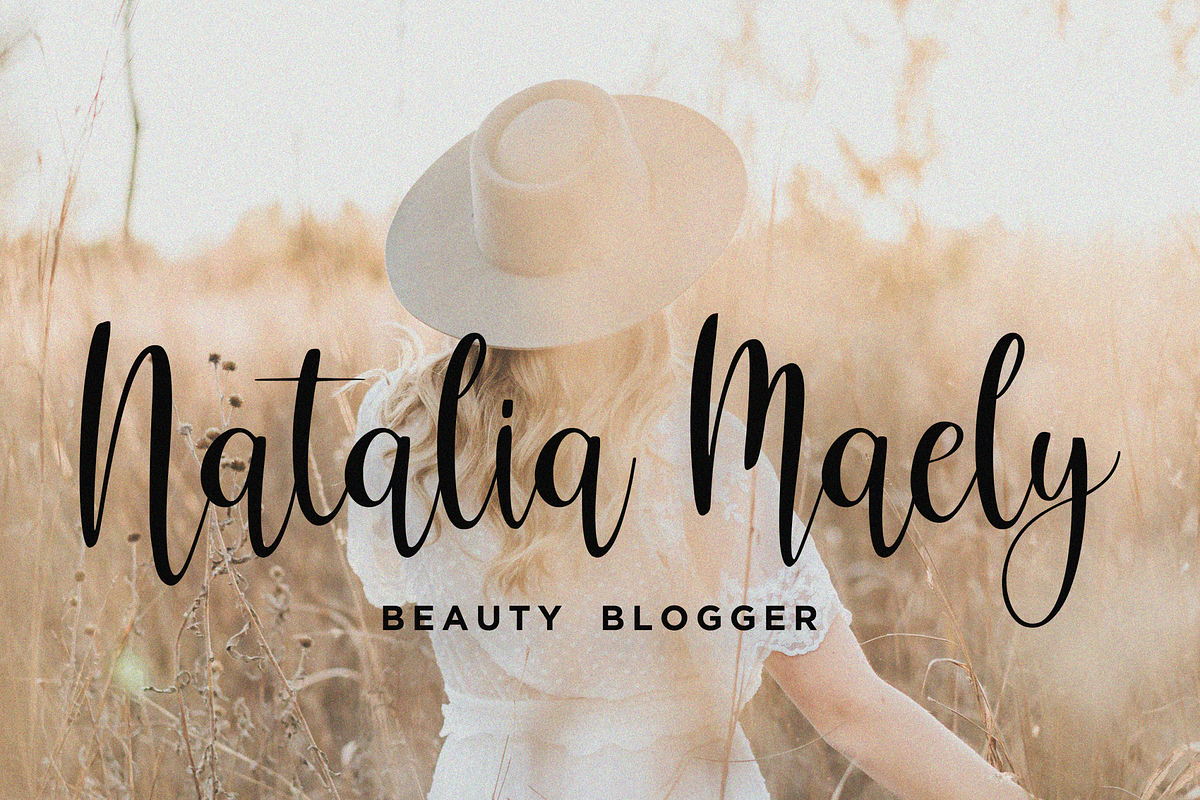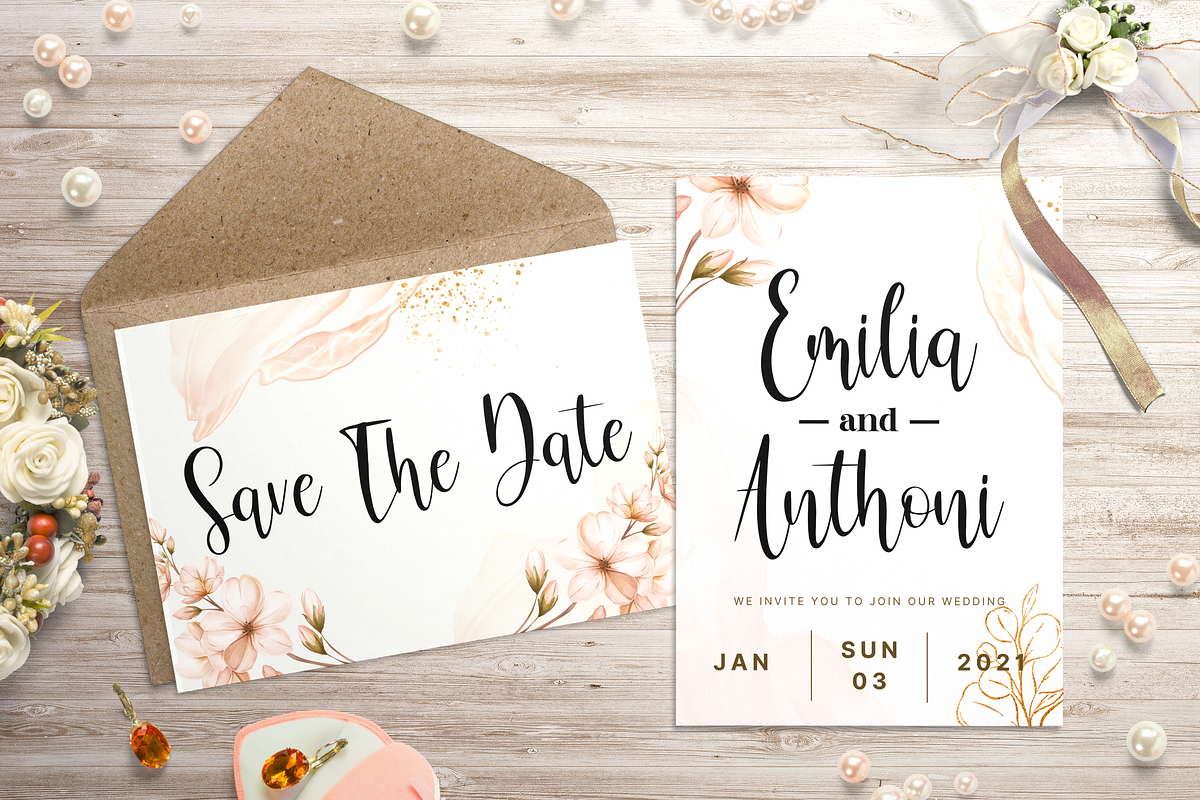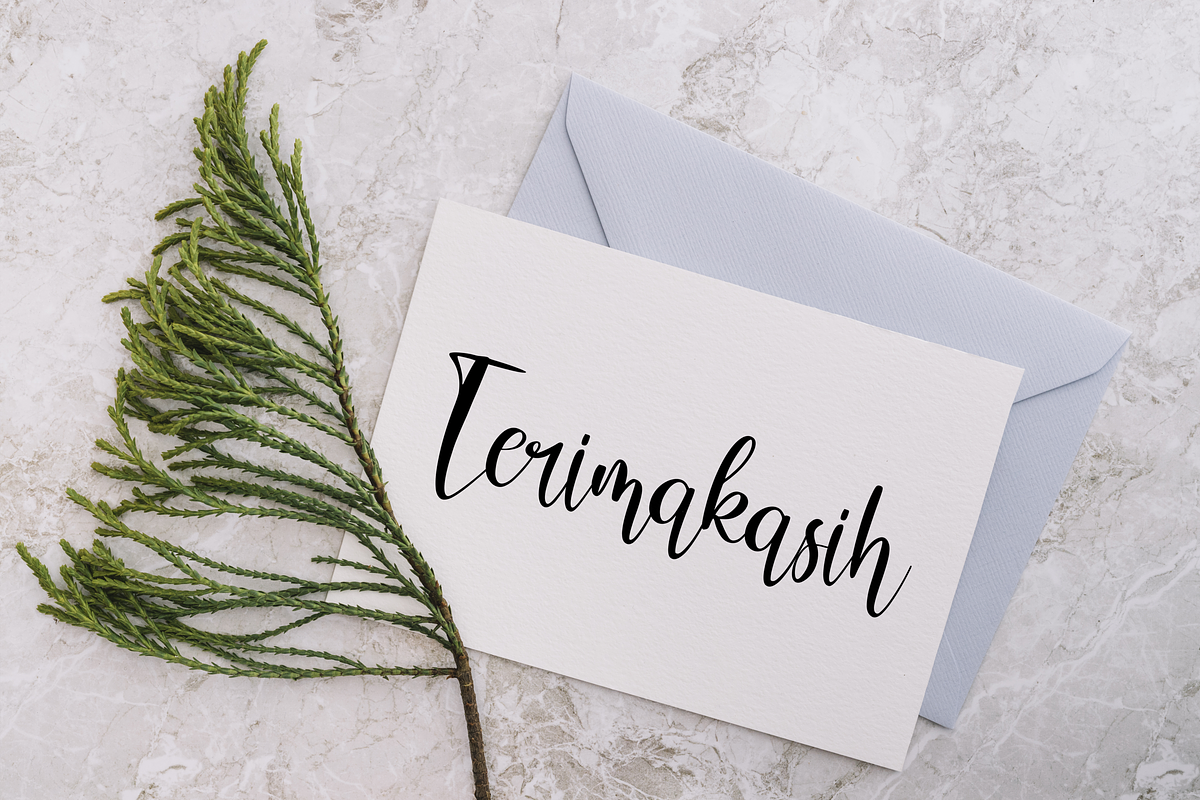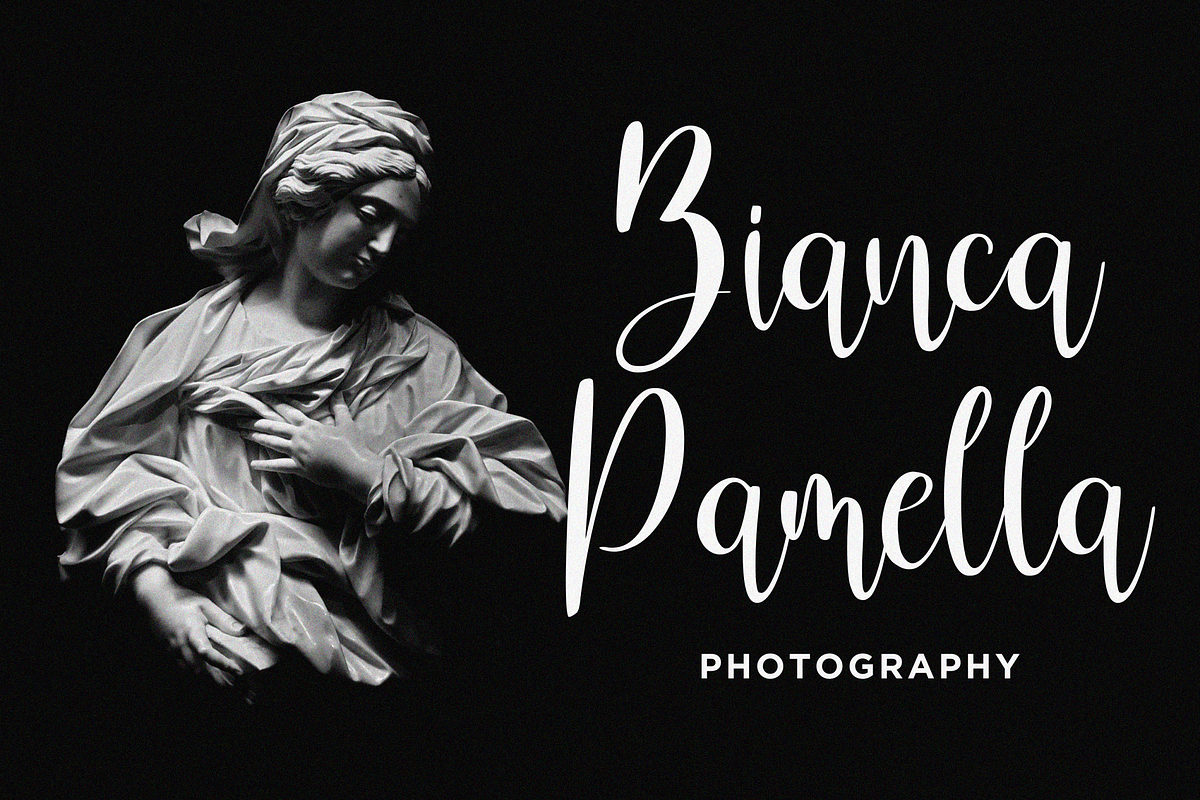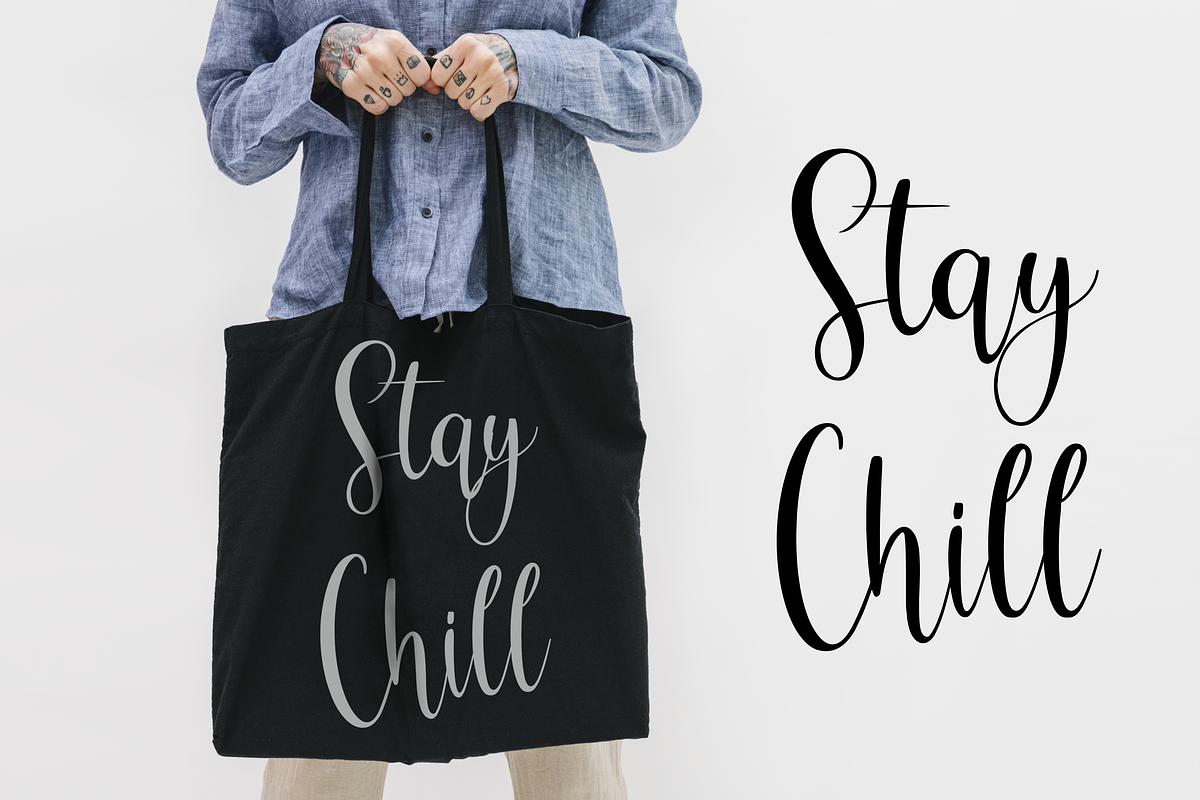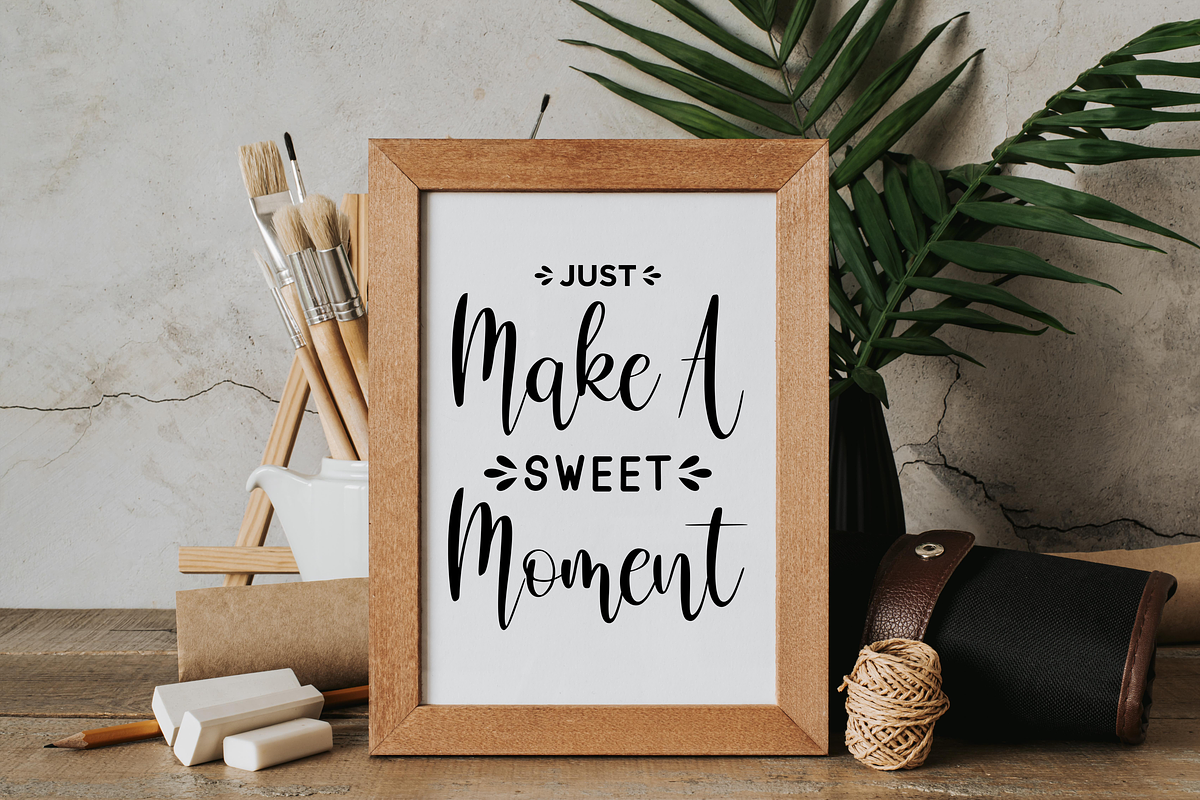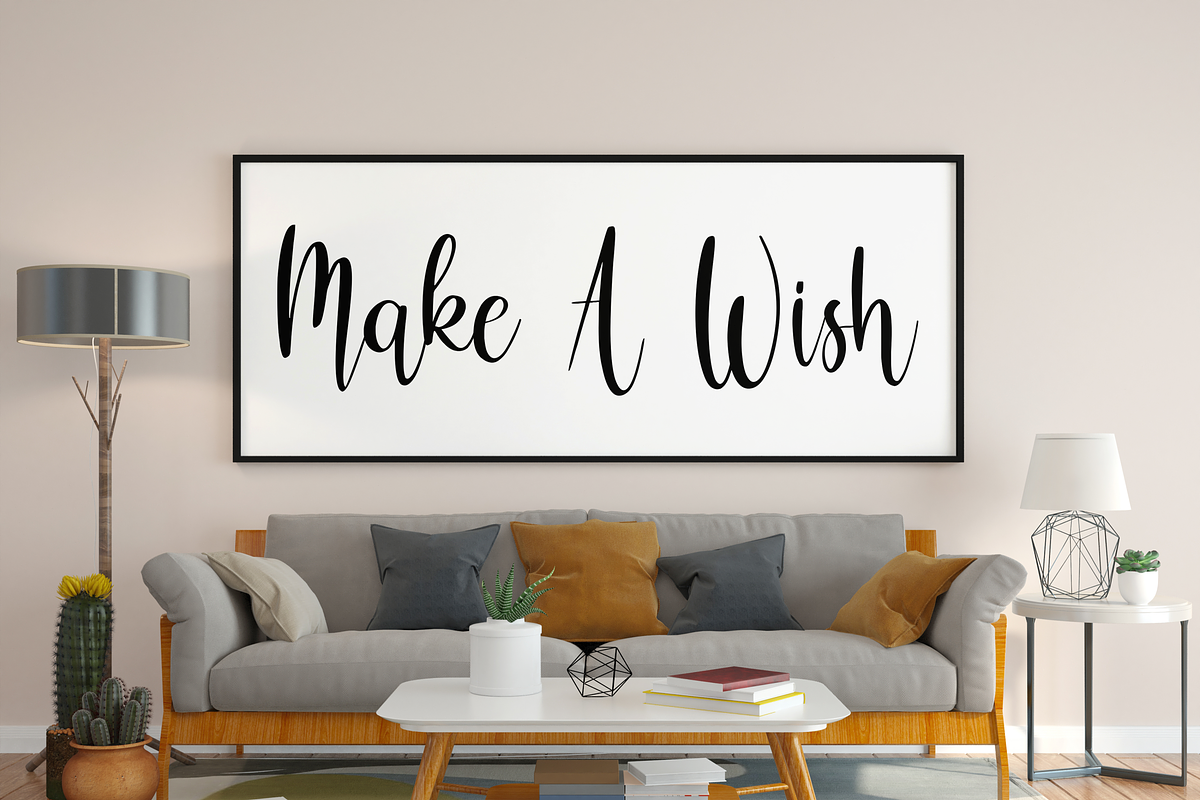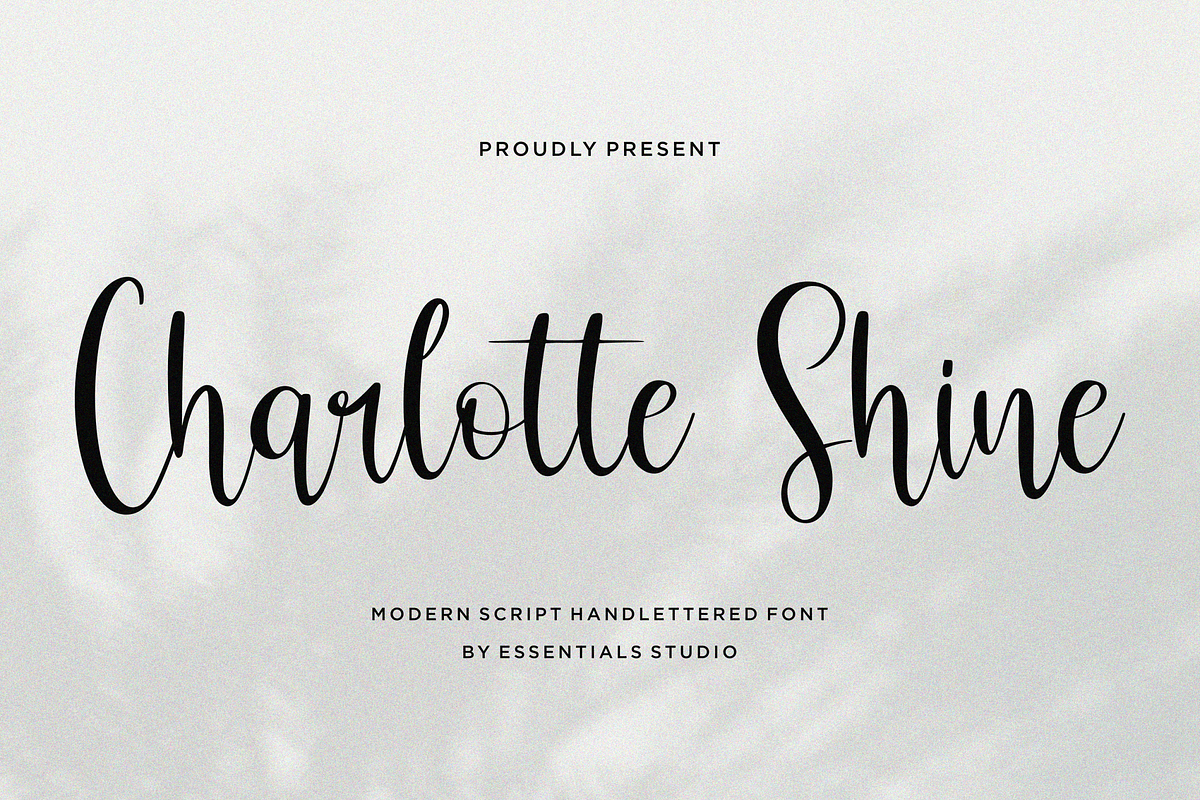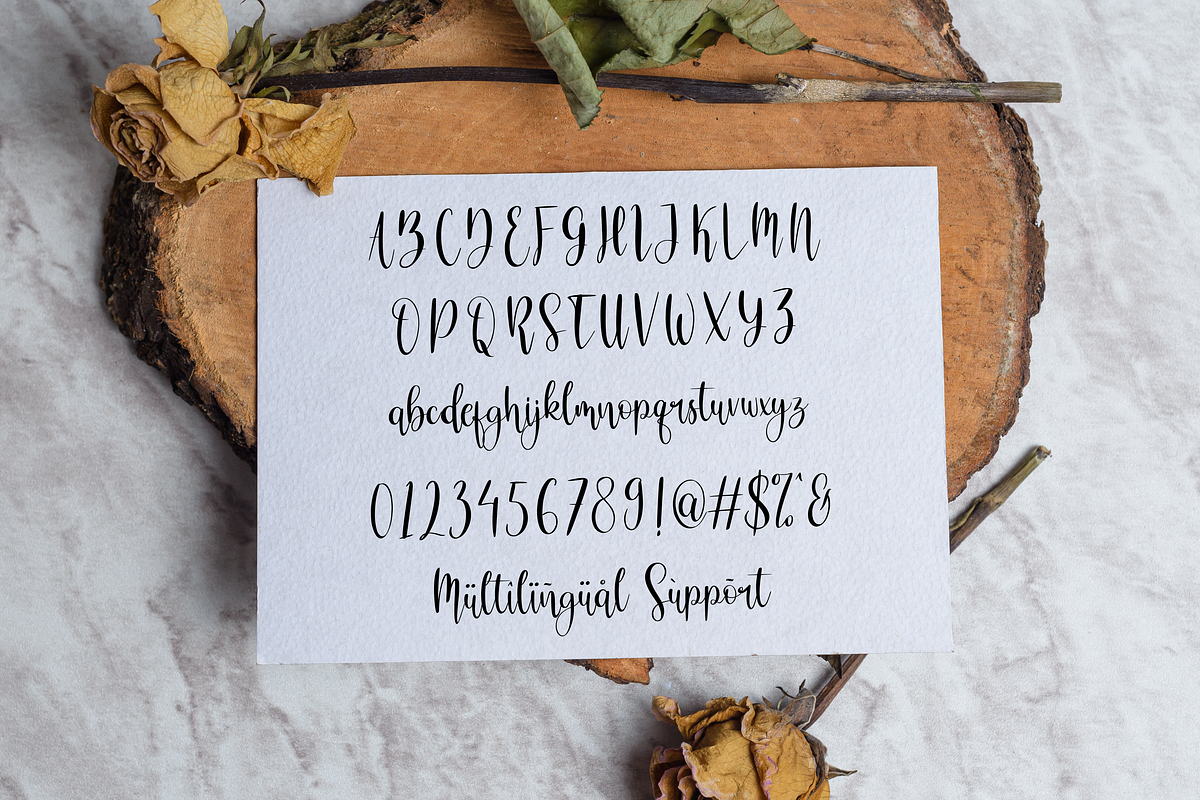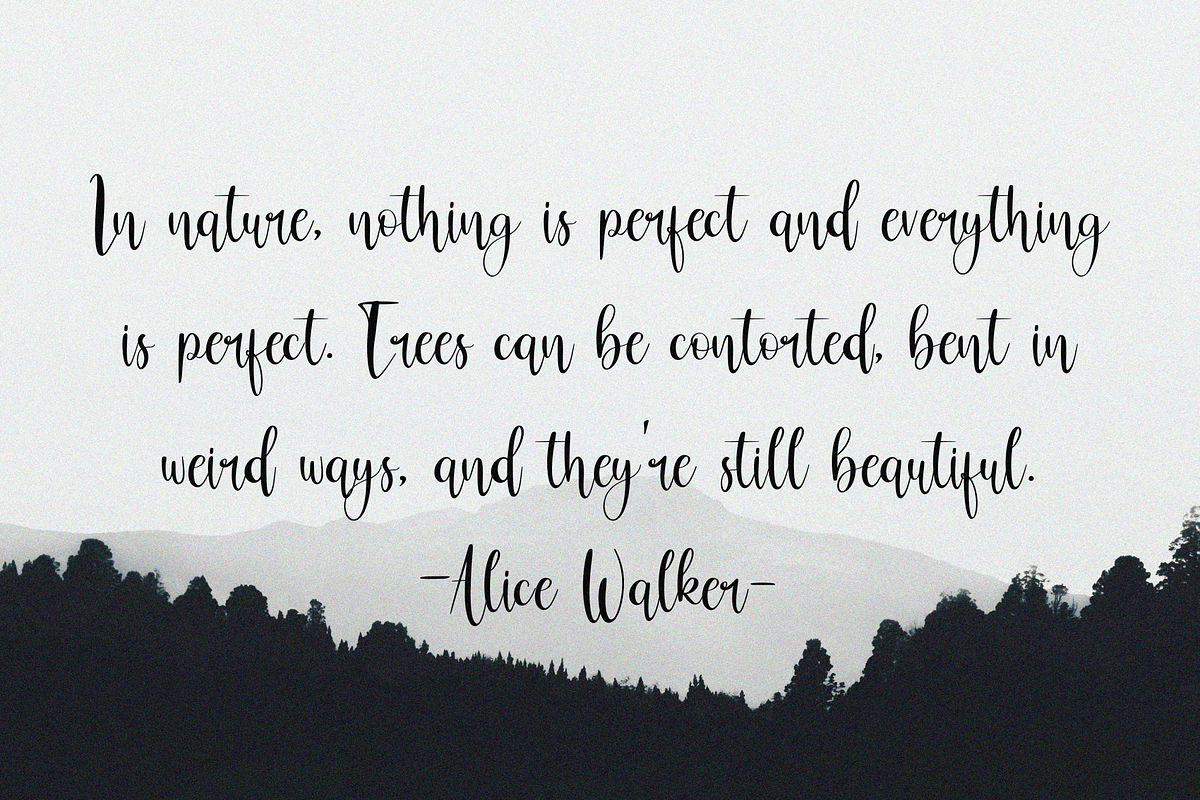
Charlote Shine
Proudly Present, Charlotte Shine Is a A Modern Handwritten Script Font
Charlotte Shine is perfect for product packaging, branding project, megazine, social media, wedding, or just used to express words above the background.
This Font Also Multilingual Support